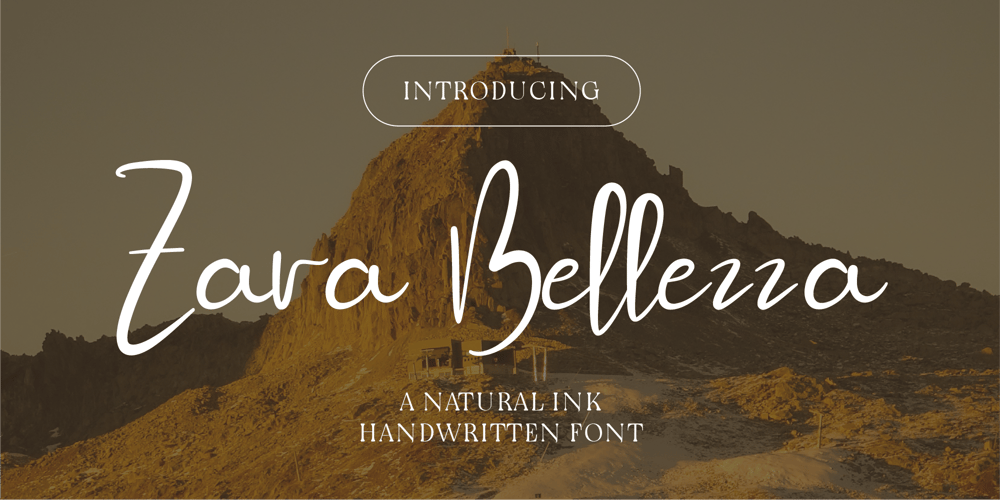
CF Zara Bellezza
CF Zara Bellezza font
CF Zara Bellezza Font Family was designed by Gilang Mei Nugraha, Frederik Aristaputra and published by Creatifont Studio. CF Zara Bellezza contains 2 styles and family package options. Sylara Signates is an exquisite pen-inked handwritten font, beautifully capturing the essence of authentic signatures. With its elegant curves, smooth flow, and natural handcrafted strokes, this font brings a sophisticated yet approachable look. Designed to emulate the luxury of ink on paper, it is perfect for branding, wedding invitations, logos, and personal designs. Whether you’re crafting a heartfelt message or creating professional designs, Sylara Signates delivers timeless charm and refined elegance, leaving a lasting impression.A SUMMARY OF WHAT’S INCLUDED:Standard Character A-Z, a-z, 0-9, Punctuation & symbolsRegular, Italic & BoldMultilingual SupportWorks on PC & MacSimple installationAccessible in Adobe Creative Suite (Ai, Ps, Id, etc.) even work on Microsoft Word.PUA Encoded Characters – Fully accessible without additional design software.🌟If you come across any issues or notice anything we might have overlooked while using this product, please feel free to reach out to us. We greatly value your feedback as it helps us enhance and refine our products. Thank you!